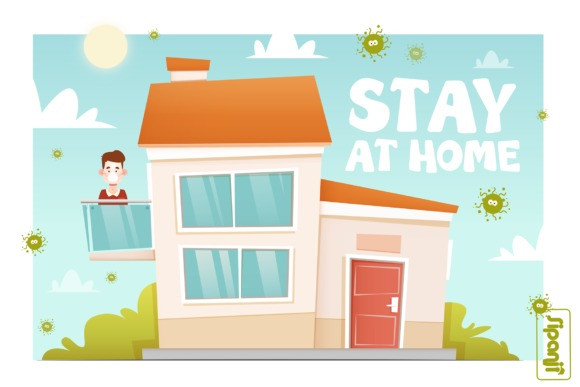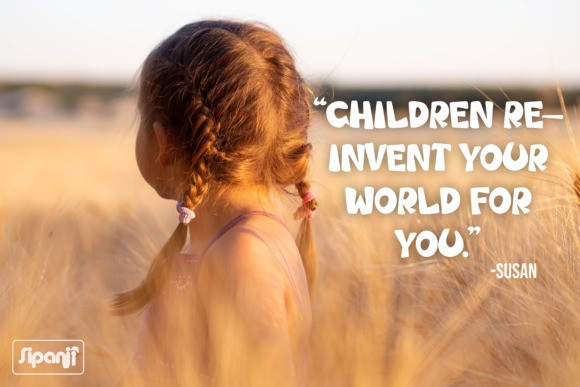
Wooden House Font
Wooden House Display Font is a cool and chunky lettered display font. It embodies playfulness and authenticity and is the perfect choice for any children activity or school project.